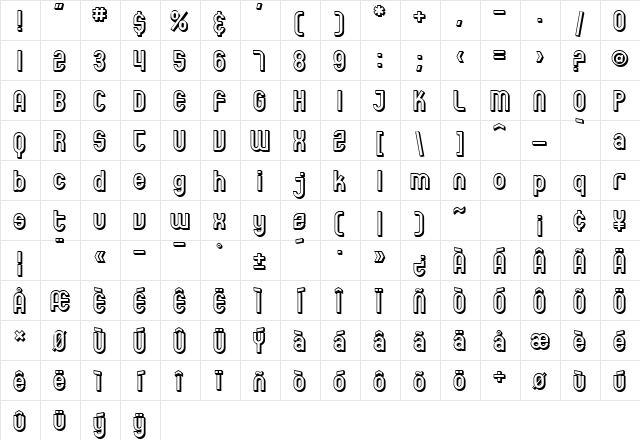
SF Eccentric Opus Shaded Regular Free Font
SF Eccentric Opus Shaded Regular
Complete SF Eccentric Opus Shaded Regular glyph index. Displaying only characters natively supported by SF Eccentric Opus Shaded Regular font.
Design Context for SF Eccentric Opus Shaded
SF Eccentric Opus Shaded is a composed and adaptable typeface that performs quietly and consistently across a wide range of design contexts.